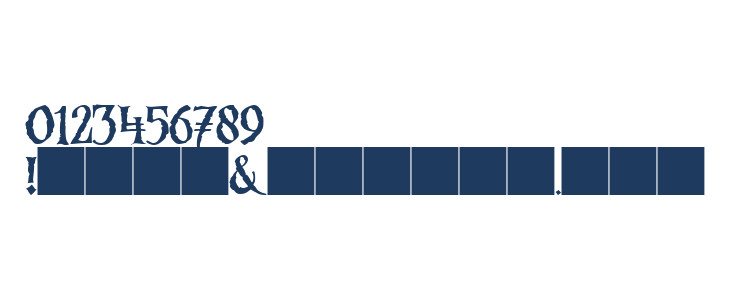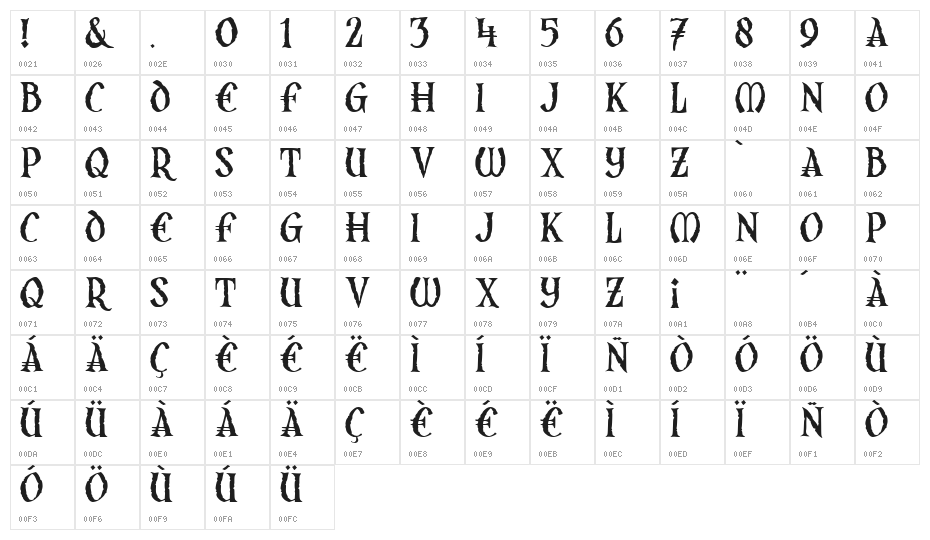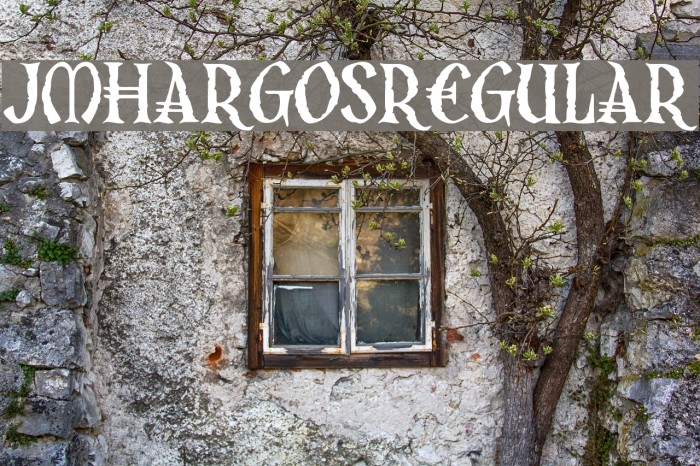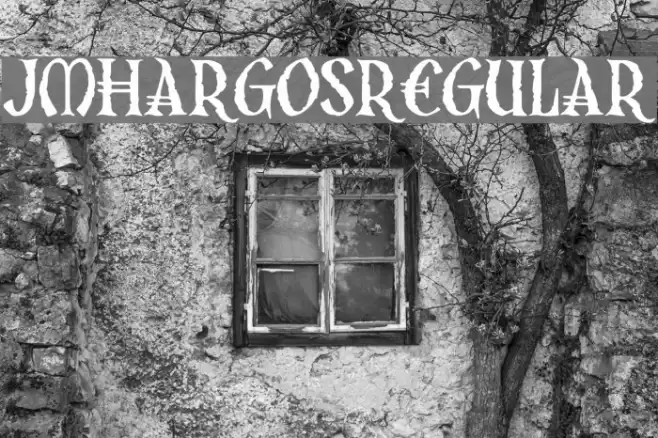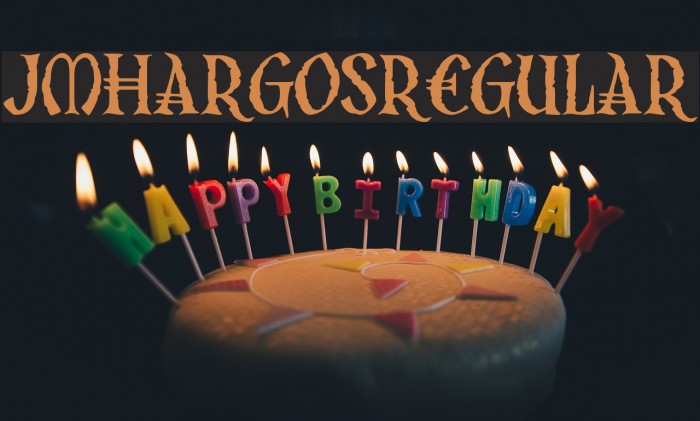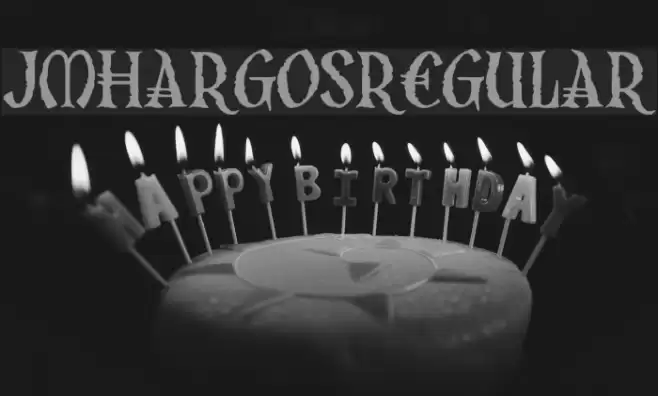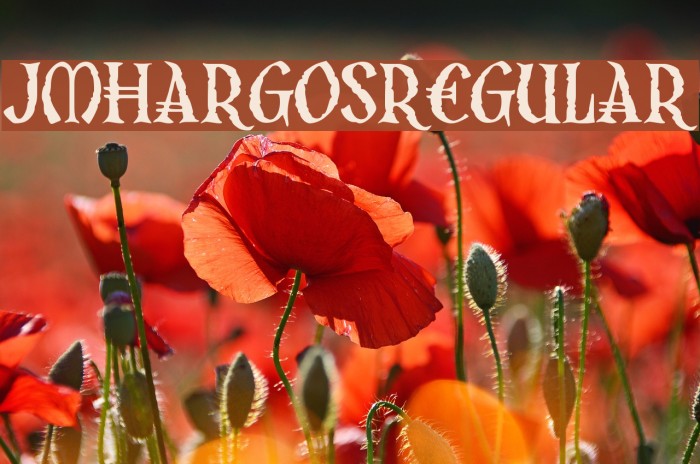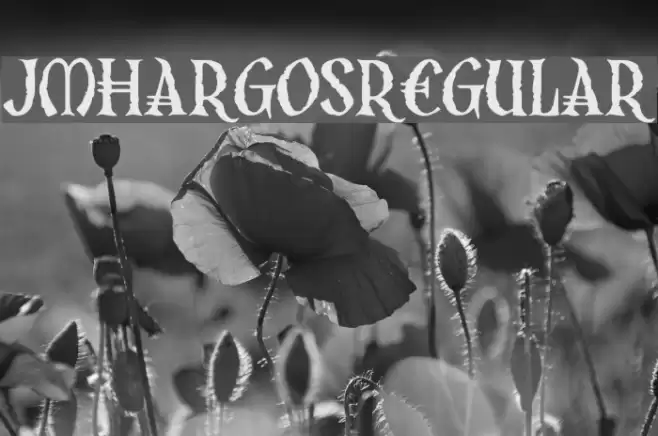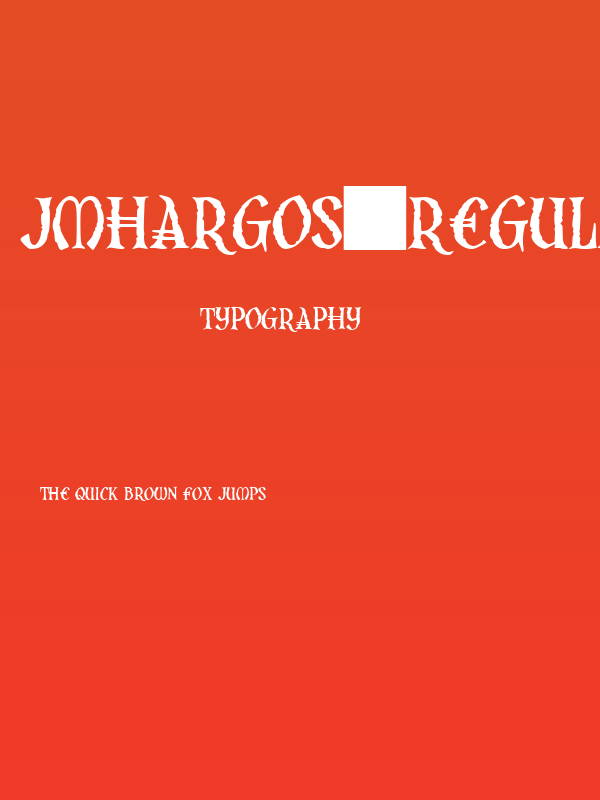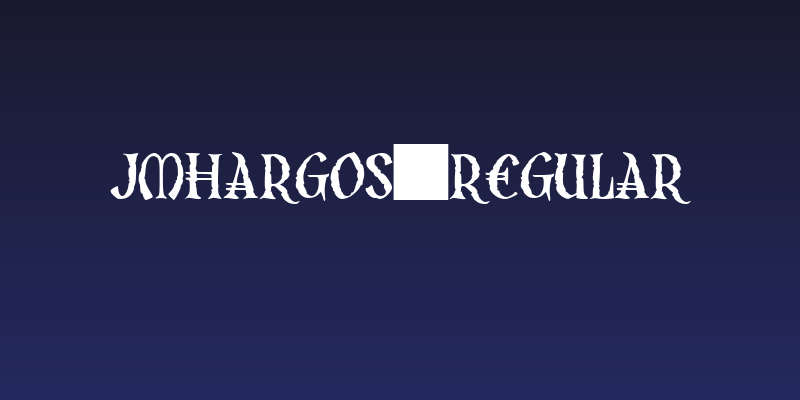
JMHArgos-Regular Font
JMHArgos-Regular Description
This font features a bold and dramatic style with sharp, angular edges and a distinct medieval flair. The characters are highly stylized with a gothic influence, showcasing intricate details and a strong presence. The uppercase letters are particularly striking, with exaggerated serifs and unique flourishes that give the font a historical and artistic feel. The numbers and special characters maintain the same boldness and intricate design, making them stand out. This font is perfect for projects that require a touch of drama and elegance, such as themed event posters, book covers, or branding for products that want to convey a sense of tradition and strength.
| Proposed Projects | Ideal for themed event posters, book covers, historical branding, and artistic designs. |